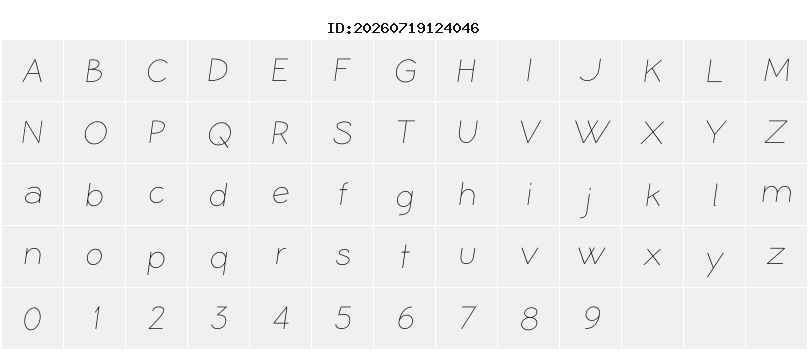
• Font Name: Coamei
• Manufacturer: Jef Triforce
Coamei.ttf is a modern, elegant sans-serif font designed for ultimate readability and visual harmony. Perfect for branding, headlines, web design, and print materials.